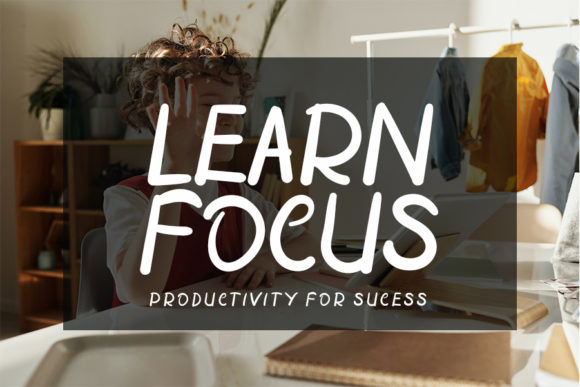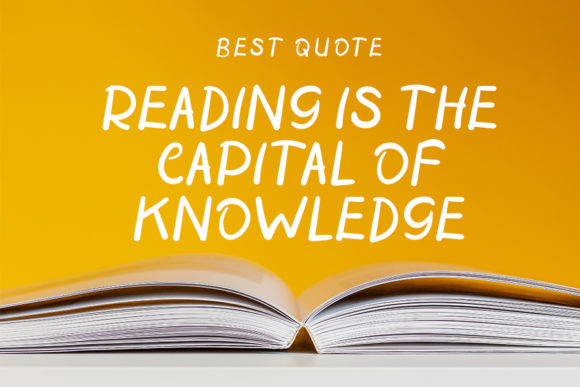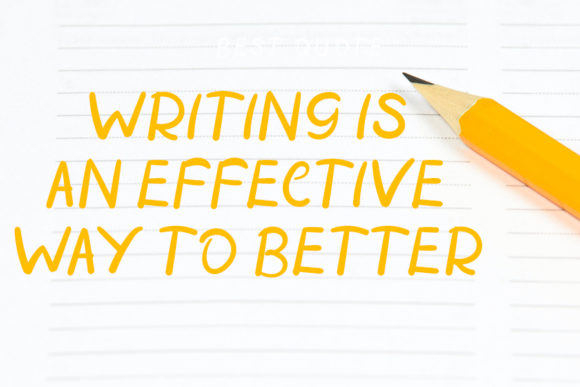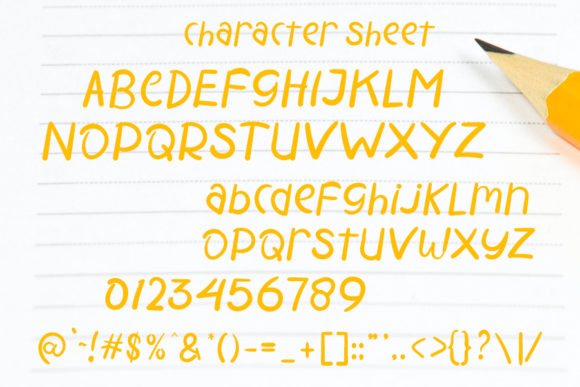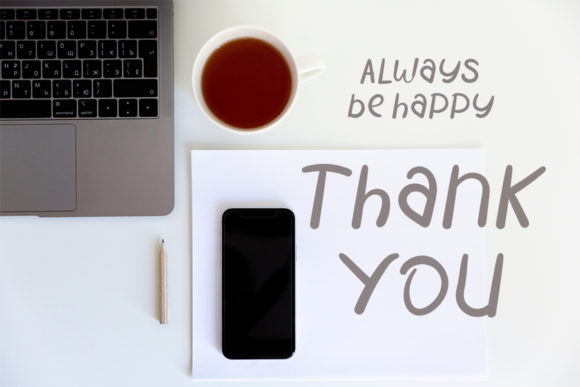
Introduction to Modern School Font
Do you remember the excitement of rummaging through your art supplies as a kid, only to create a masterpiece that was uniquely yours? For many designers, that feeling never fades, and it’s exactly what the Modern School Font embodies – a perfect blend of creativity and elegance. This vibrant handwritten font is not just a design resource, but a key to unlocking your imagination and bringing your creative projects to life.
Whether you’re working on a logo, branding, or social media campaign, the Modern School Font is a versatile and high-quality design tool that will elevate your work. Its clean and quirky style makes it an ideal choice for designers who want to add a touch of personality to their projects. And with its transparent background, you can easily incorporate it into any design without worrying about distractions.
Key Features of Modern School Font
- High-quality, professional font design suitable for creative projects and educational materials.
- Features a transparent background, making it easy to customize and pair with different design elements.
- Unique, modern design that is perfect for creating engaging and informative educational materials, such as presentations, posters, and handouts.
Honest Review: Modern School Font
As a designer, I’m always on the lookout for high-quality design resources that can elevate my creative projects. Recently, I had the chance to work with the Modern School Font, and I’m excited to share my honest review.
- Unique and playful style: The Modern School Font has a distinctive look that’s perfect for educational or creative projects.
- High-quality design: The font is well-designed and feels professional, which is essential for any creative project.
- Limited character set: The Modern School Font only includes a limited character set, which may not be suitable for longer texts or complex designs.
- No transparent background: This font doesn’t have a transparent background option, which can be a limitation for designs that require a clear background.
Overall, I’m impressed with the Modern School Font’s unique style and high-quality design. While it may have some limitations, it’s a great resource for designers looking for a creative and eye-catching font for their projects.
For the best results, use the Modern School Font in conjunction with other design elements that complement its modern and school-inspired aesthetic. Experiment with different font sizes, colors, and arrangements to create a unique and engaging design.
The Modern School Font is commonly used in educational materials, such as lesson plans, handouts, and presentations. It’s also great for creating creative projects, like posters, flyers, and social media graphics, that require a modern and eye-catching design.